It’s the question on every designer’s mind: how do I get the kind of work I really want? If only we had a simple answer (that’s a blog post for another day). What we can tell you is that professional lettering artist and illustrator Letters Pray, also known as Andy, seems to have cracked the code for himself.
Andy’s love for glyphs started back in 2015. After getting an iPad Pro he found himself hooked and fully committed to his craft. His career is thriving, but Andy’s secret is that he doesn’t freelance exclusively. He works full-time at a creative agency, which allows his personal lettering practice to flourish on the side. In turn, his clients come to him because they already love his style, which means he gets to work on projects he truly connects with, like creating the cover for our community calendar. It’s like hitting the creative jackpot.
We caught up with Andy to learn how he balances career and passion, what inspires him, as well as his tips for budding lettering artists.
Who is Letters Pray? How did you get your start?
I’m Andy. I’m from London but now live in Bristol.
At uni, I was very drawn into note-taking and making my notebooks look engaging and cool. This habit bled into my work life, and I found myself missing stuff in meetings because I was busy perfecting flourishes or practicing calligraphy. But I really got into hand lettering and illustration while working in a really boring job.
I started by doodling on bananas on my lunch break and sharing silly stuff on Instagram. I was excited by what I saw on the platform, browsing other artists and getting inspired by all the amazing art they were making, so I decided to get better.
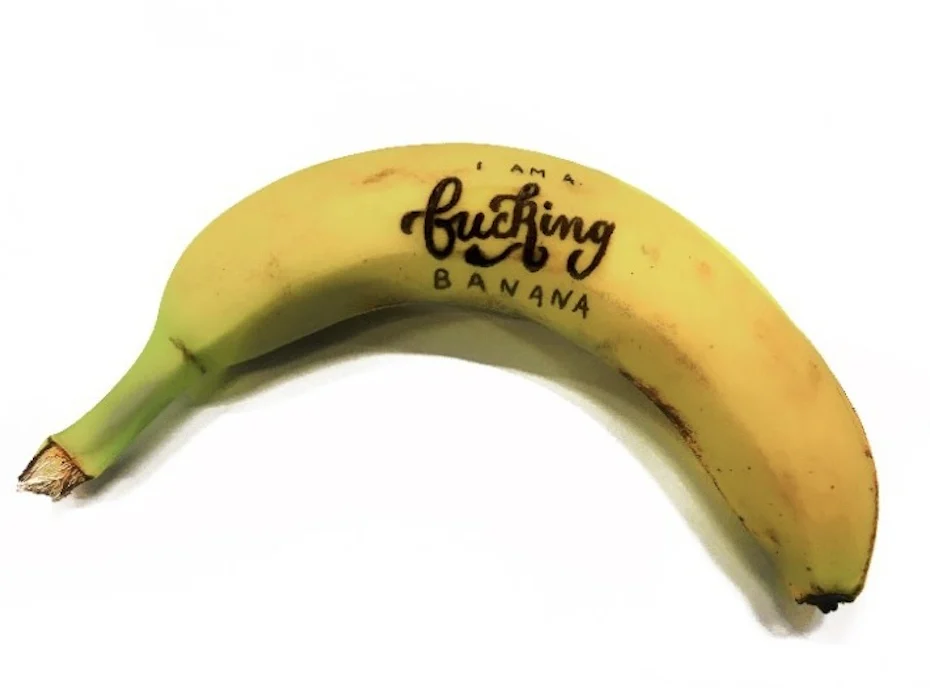
I learned by buying materials and trying them out, practicing different styles and approaches, watching videos and experimenting. When I got an iPad Pro is when my journey really took off, and I would be lettering every spare second I had.
Once I started sharing my experiments on Instagram, I found a whole community of artists who were doing the same kind of stuff, just at a much higher level! From there—I think around 2015—it became an obsession. I find something so satisfying about lettering. The idea is that we have these forms that everyone recognizes, but there are infinite ways to reimagine them.
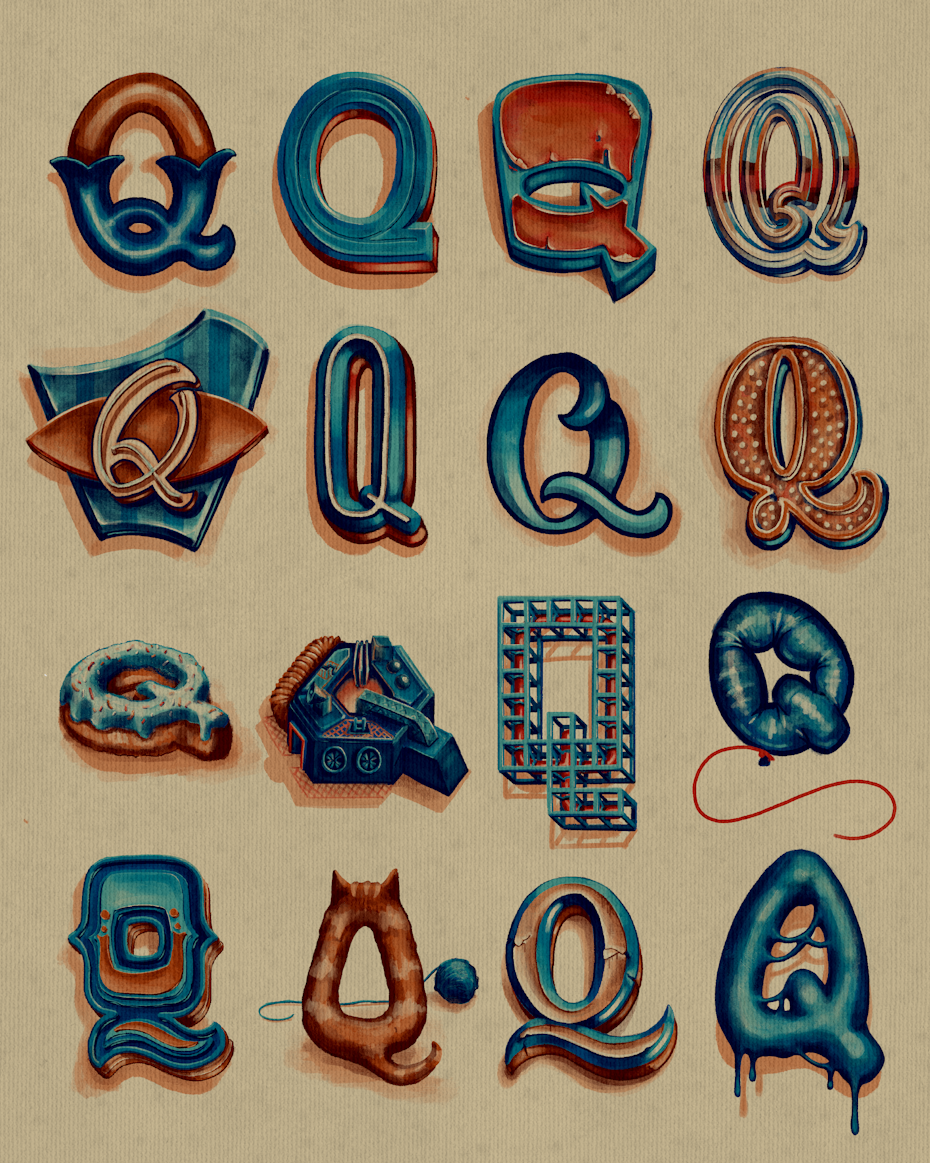
You currently balance a full-time agency job with freelancing. What’s that journey been like?
I took a break from my 9-to-5 job in 2019 to go traveling, and I did a bit of freelance work on the road to support myself. The traveling got interrupted by the pandemic, but I kept on working as a freelance illustrator and lettering artist until 2021 when I started working at a creative agency again.
Since I work a normal job as well, I can be choosy about which freelance work I take on. When I was only freelancing, I basically took on anything that came my way because I needed the money. I ended up taking on work I shouldn’t have, either because it was an area I wasn’t skilled in, the timings were unrealistic or the budget was too low. I learned a lot, but it was tough.
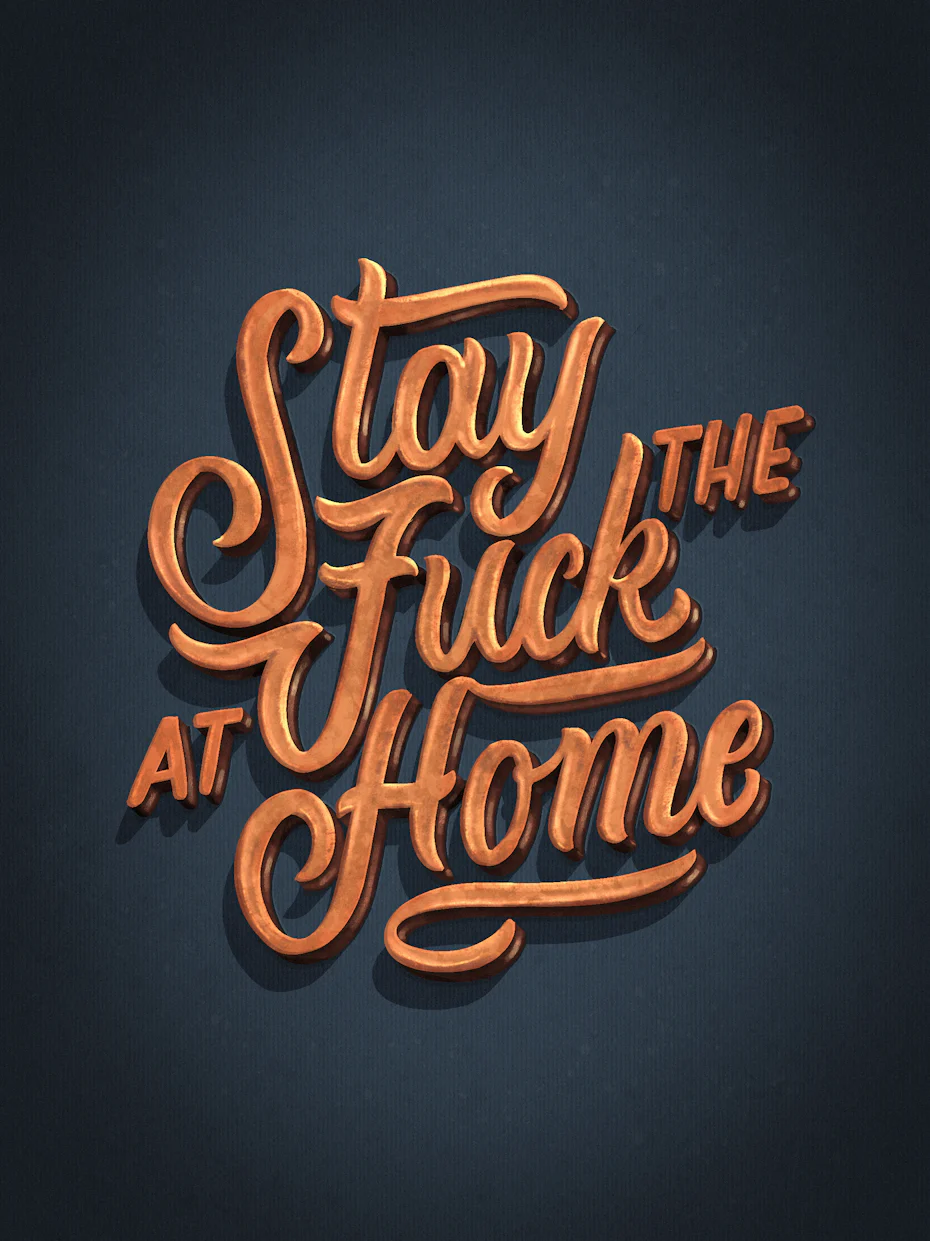
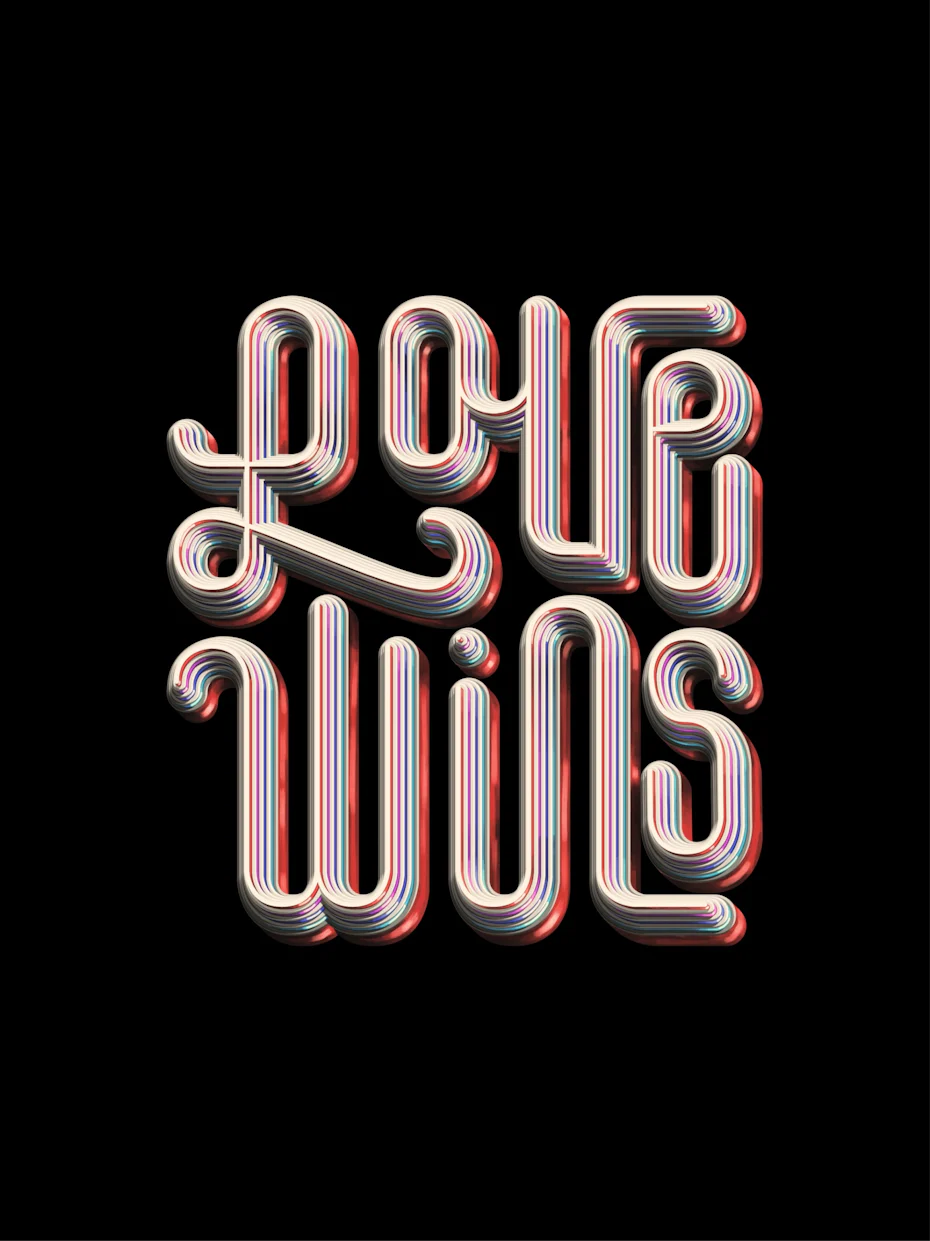
I still take the odd freelance lettering project when they come up. I love doing freelance work, particularly because my clients come to me because they already like my style. Which means I’m probably going to enjoy doing the job! I can be picky about which jobs I work on—and when I take them on. This means that I only really end up working on projects that I know I can fit into my schedule, and I know it will be a project I’m getting something out of. Whether it’s a style I like working in and can add to my portfolio, or the chance to use a new process, technique or software that I want to get some more experience in.
You’ve mentioned Instagram a few times, and your feed is pretty packed with beautiful work. What role does it play in your practice?
For a while, I made it a rule to share something on Instagram every day. That was how I learned to get better and make stuff people liked. Over the last couple of years, I’ve massively curbed my Instagram usage and now I don’t really post much at all.
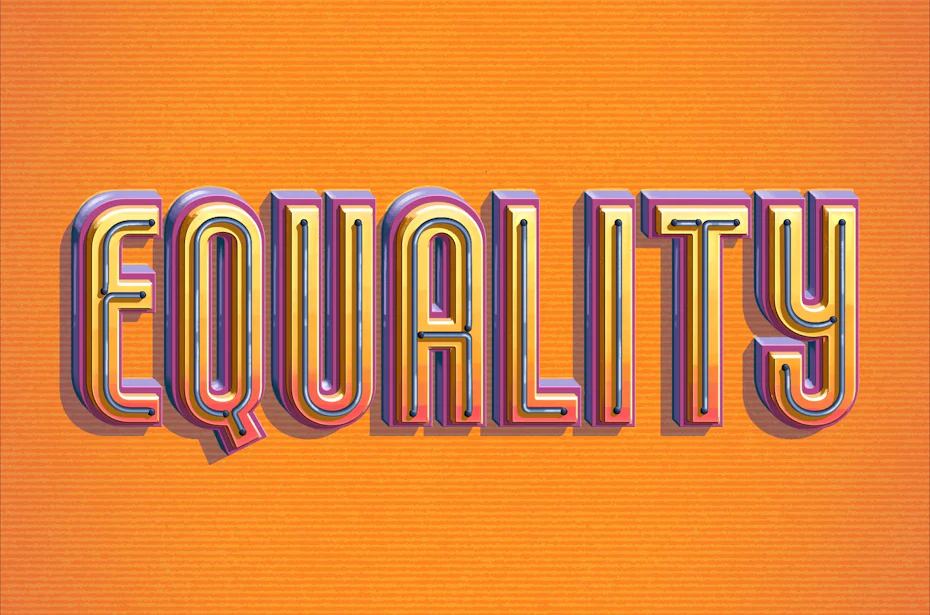
I still find it useful and it’s definitely been an incredible tool for me in the past as it’s where most of my clients have found me, and occasionally still do. And I love connecting with other designers and artists there, occasionally doing collabs or just supporting each other’s work. But I have to say that my mental health and concentration levels have massively improved since I stopped using it so much.
I noticed you work analogue from time to time, using a physical sketchbook and pencil to start. What’s the value in going “back to basics,” so to speak?
When I’m working on a client project I’ll almost always start on my iPad and keep the whole process digital, because I can work much faster that way. But recently—and this kind of coincided with me taking a step back from Instagram—I’ve been drawn to working in physical media again.
The first reason I did this was because I realized that I had become so reliant on the “undo/redo” cycle that comes with digital, that I had basically forgotten how to draw letters by hand. I went on a bit of a re-learning journey that involved lots of sketching, scribbling, trying things and challenging myself to make something that pleases me as much as something I had made on an iPad. Most of this I keep to myself but I occasionally like to share some of these experiments online, if I think they’re good enough!